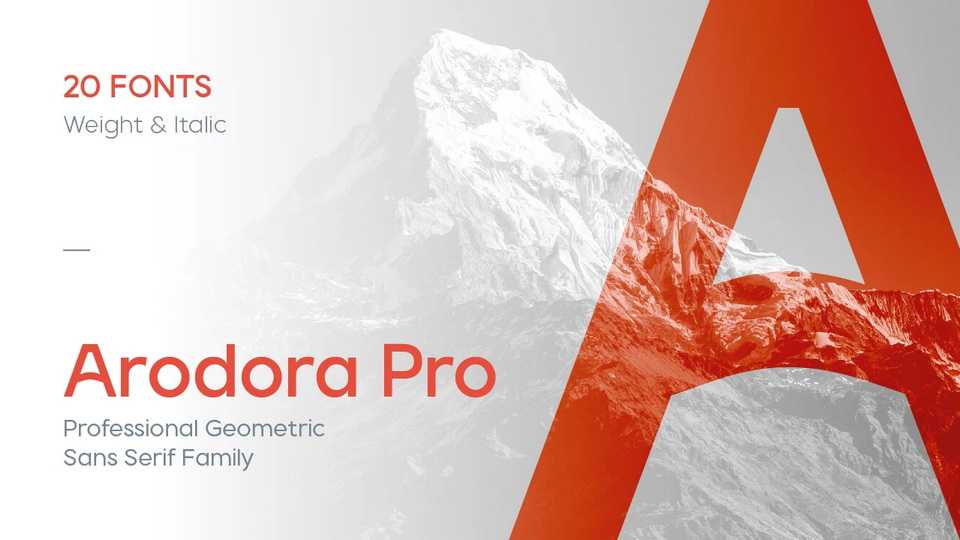
Download Arodora Pro font, a creative sans serif family with modern and geometric lines. Arodora Pro easily adapts to all kinds of creative graphic works and screen applications and reflects you well with its modern appearance.
Designer: Serdar Öztürk